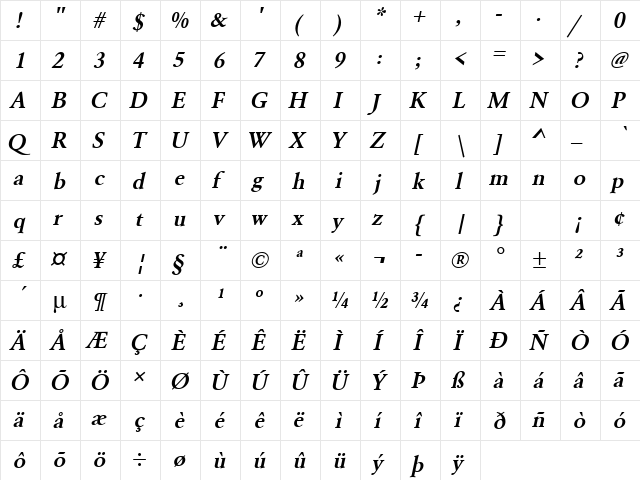
URWGaramondTDem Oblique
Design Context for URWGaramondTDem Typeface
URWGaramondTDem is a composed and adaptable typeface that performs quietly and consistently across a wide range of design contexts. The dynamic lean of this cut emphasises speed and emphasis in any layout.
Pro Tip: Use URWGaramondTDem for emphasis, pull quotes, and subheadings where its slanted energy can add rhythm to the layout.